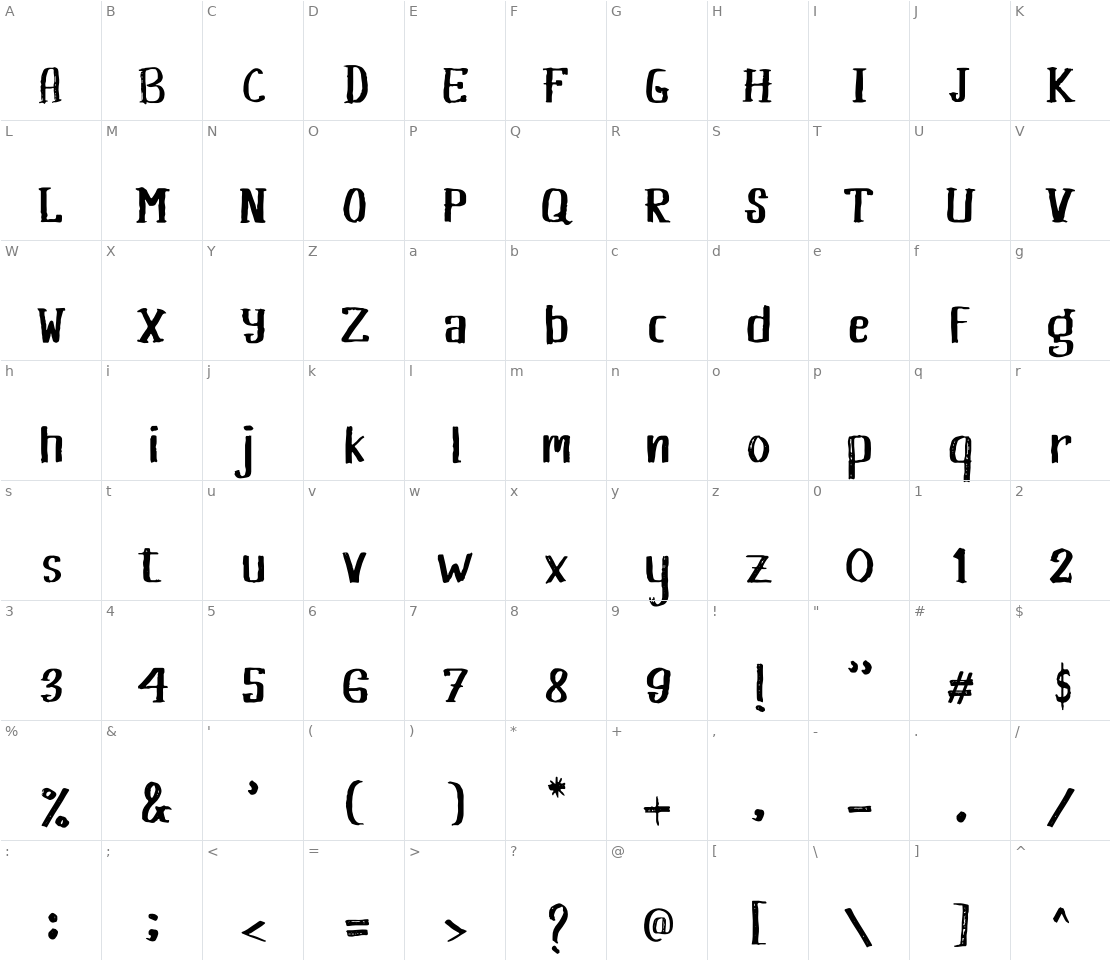
Khasanah
Khasanah is a condensed serif from Best Font Studio with heavy distressing that gives every letter a worn, weathered texture. The narrow proportions and bold weight keep it punchy for headlines and display use, while the rough surface treatment pulls it firmly into vintage territory. It feels like type salvaged from an old letterpress broadsheet, best used at sizes large enough to let that gritty detail come through.